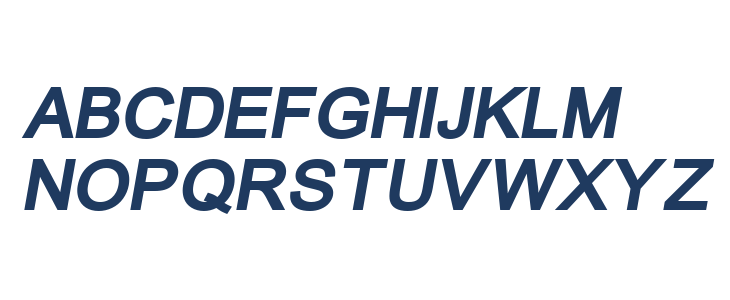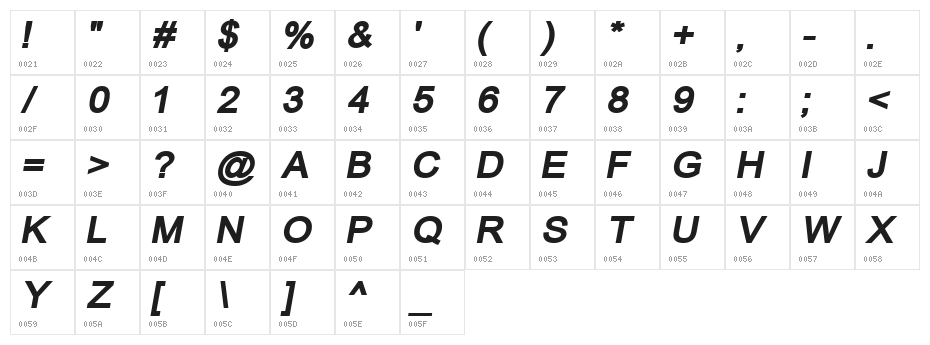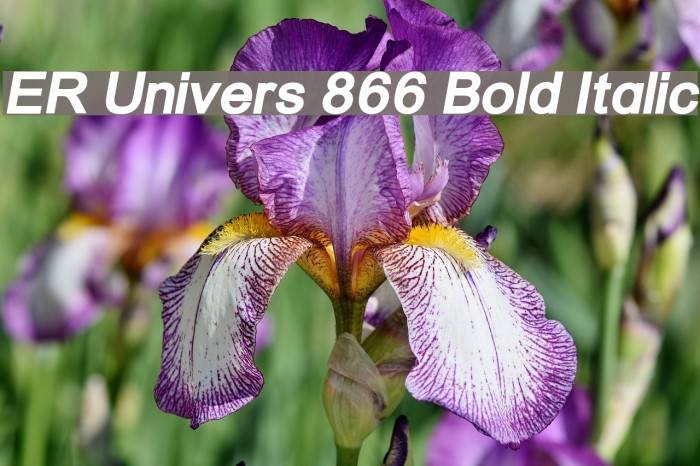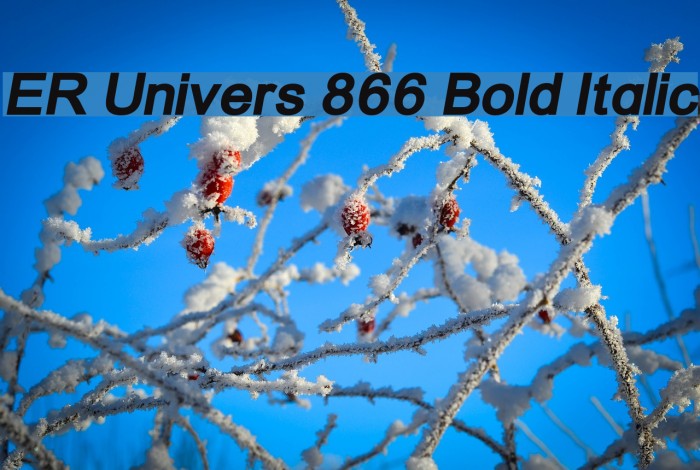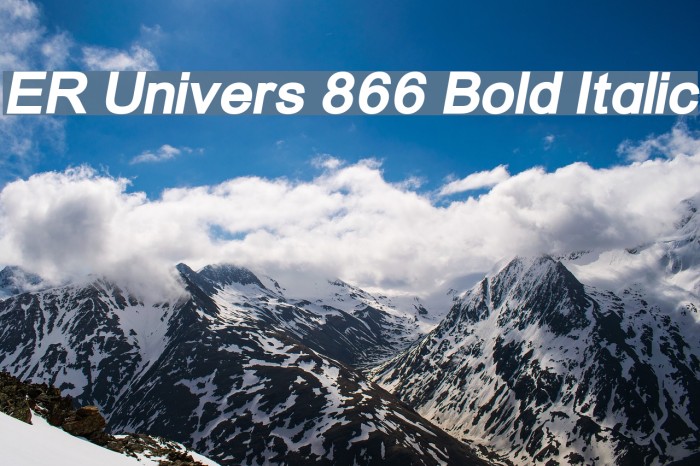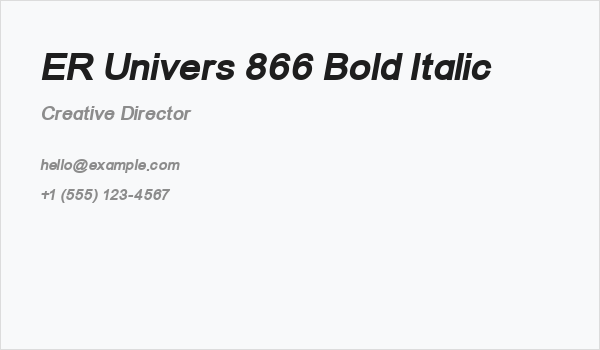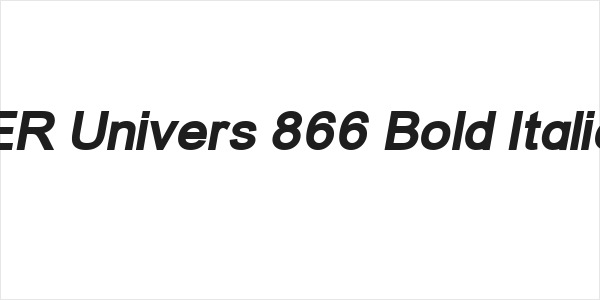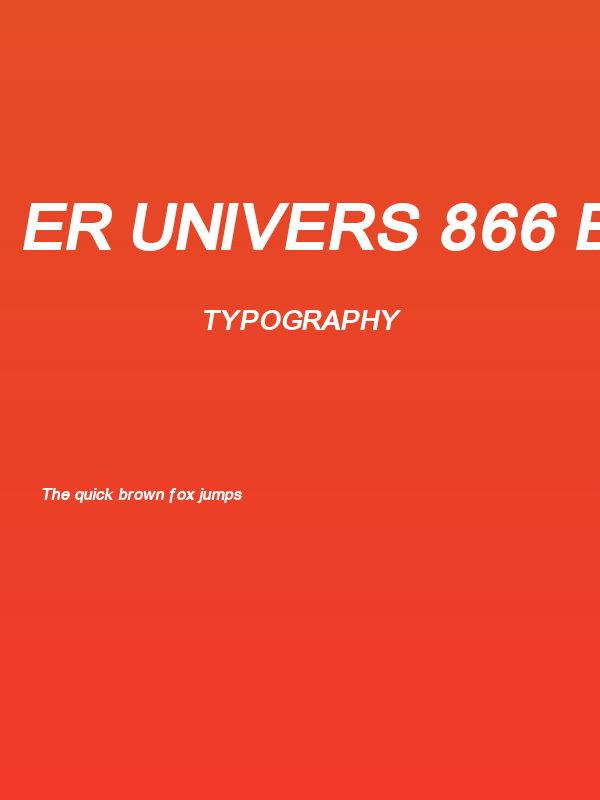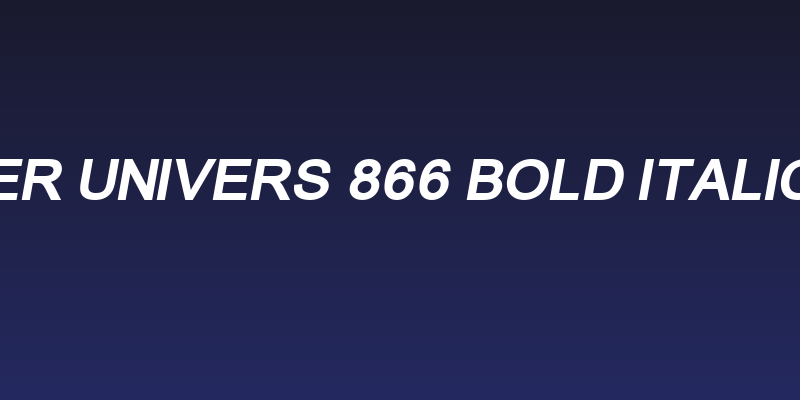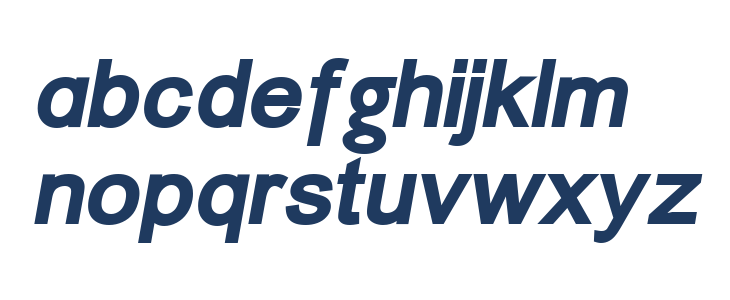
ER Univers 866 Bold Italic Font
ER Univers 866 Bold Italic Description
This font exhibits a bold and italicized style, characterized by its clean and modern sans-serif design. The letters are slightly slanted, adding a dynamic and forward-moving appearance. The strokes are consistent and bold, providing a strong visual impact. The uppercase and lowercase letters maintain a uniform width, ensuring readability and balance. The numerals are clear and distinct, matching the overall boldness of the alphabet. Special characters are well-integrated, maintaining the same bold and italicized style. This font is versatile, suitable for various design applications where a modern and assertive look is desired.
| Use Case | Headlines, Logos, Advertising |
| Proposed Projects | Ideal for branding, advertising, headlines, and digital media where a strong and modern presence is needed. |